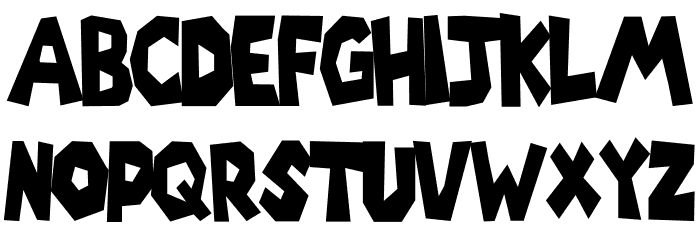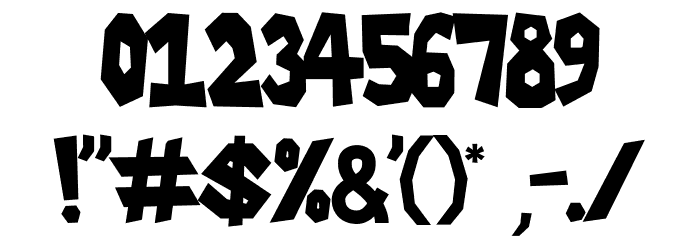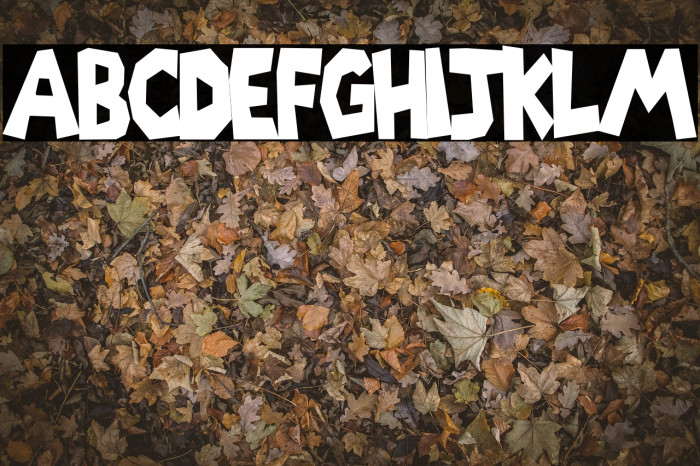
Wilkey Font
This font features a bold and dynamic style with irregular, angular shapes that give it a distinctive, edgy appearance. The characters are heavily stylized, with sharp edges and varying stroke widths, creating a sense of movement and energy. The uppercase letters are particularly striking, with a blocky, geometric form that commands attention. The lowercase letters maintain the same boldness, ensuring consistency across the typeface. Numbers and special characters are equally bold and maintain the angular, geometric theme. This font is ideal for projects that require a strong visual impact and a modern, unconventional look.
A bold, angular font with a dynamic, edgy style.
- Proposed Projects: Ideal for posters, album covers, video game titles, and branding that requires a strong, modern aesthetic.